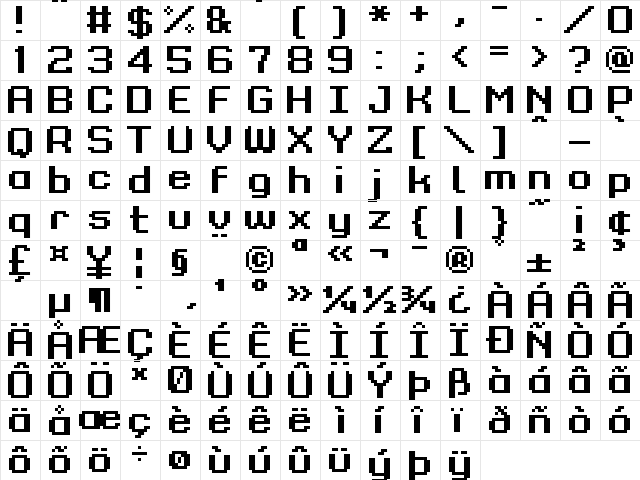
Grixel Kyrou 9 Regular Bold Xtnd Regular
Design Context for Grixel Kyrou 9 Regular Bold Xtnd Typeface
Grixel Kyrou 9 Regular Bold Xtnd is a composed and adaptable typeface that performs quietly and consistently across a wide range of design contexts. Its bold stroke weight gives it real presence on the page.